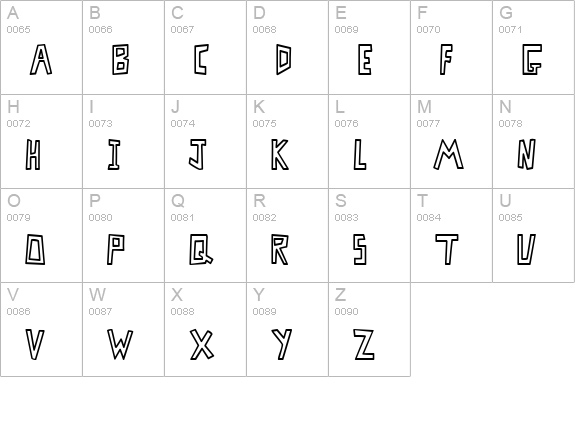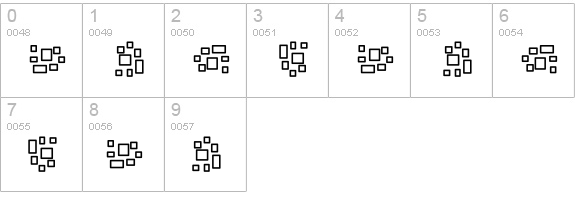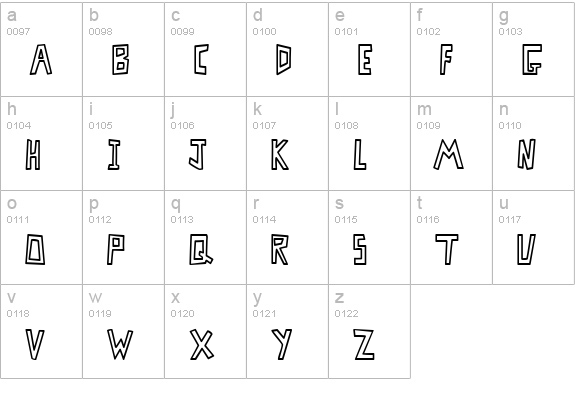
MisterBass hollow Font Details
MisterBass Hollow font is a unique and eye-catching typeface that combines modern elegance with a touch of playfulness. Its hollow design gives a sense of lightness and sophistication, making it perfect for a wide range of creative projects. This font is freely available to download at FontsMarket.com, allowing designers and creatives to easily access and use it in their work. With its clean lines and stylish appearance, MisterBass Hollow font is ideal for branding, logos, posters, invitations, and more. Whether you're looking to add a contemporary flair to your designs or simply want to experiment with a fresh new font, MisterBass Hollow is sure to make a statement. Don't miss out on this fantastic free font – download it today and let your creativity shine!